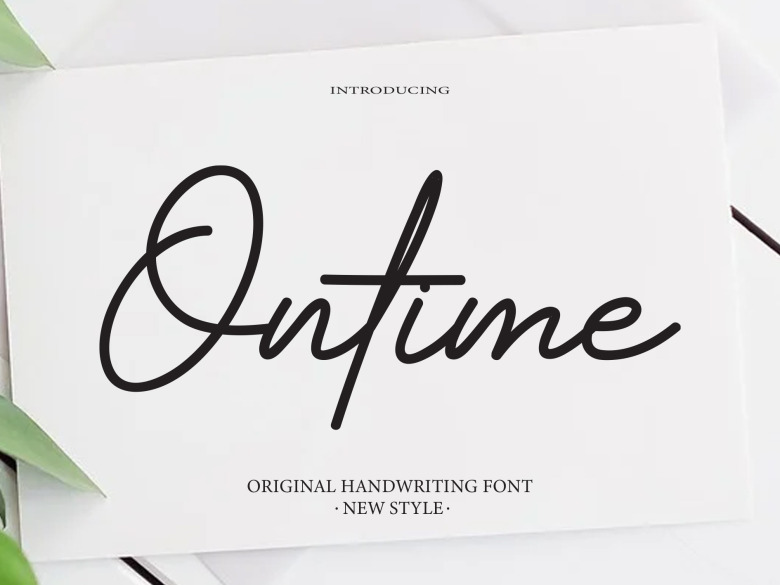
Ontime Font
Ontime’s delicate hand brings characters to life on the page. With careful strokes, this monoline script paints cool and unique designs. Letters, invitations or food finds this font suitable for. Its glyphs and swashes freely flow as a PUA encoded type.
Ontime Handwritten Script Font